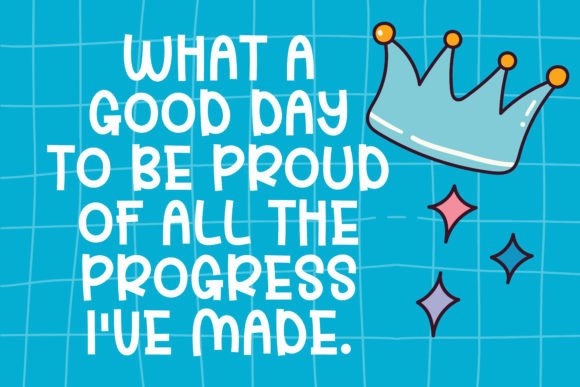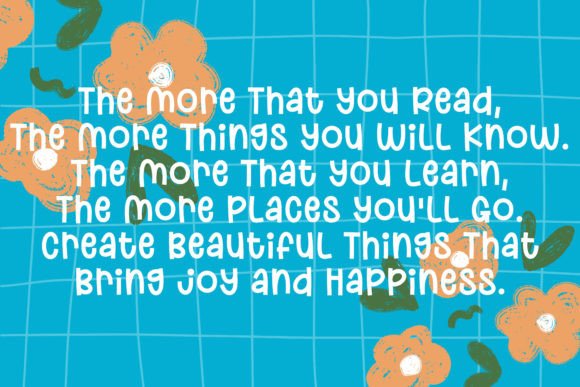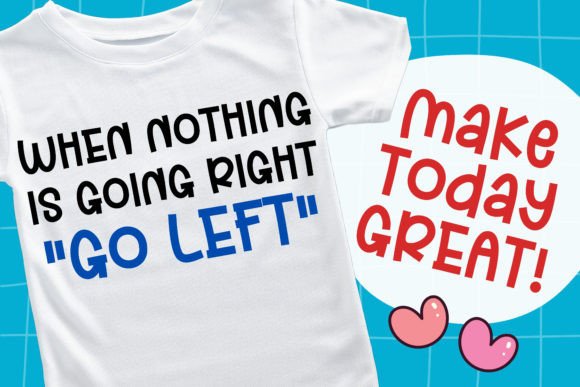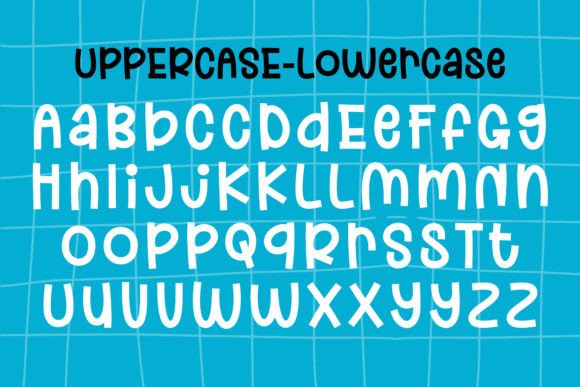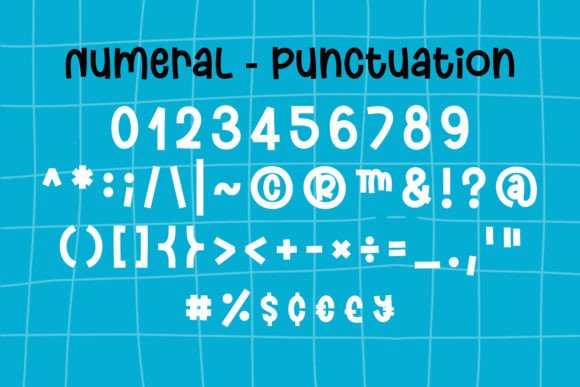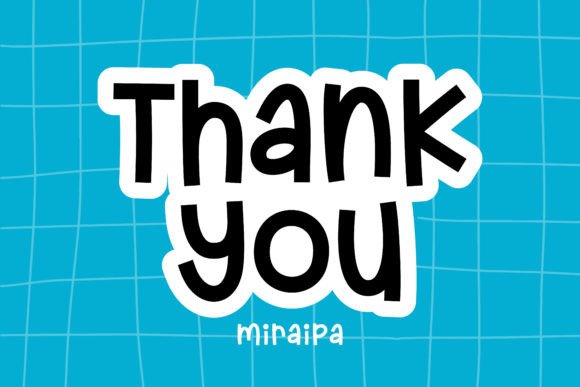
Give Your Projects a Friendly Touch with Best Friday Font
Have you ever sat at your desk, surrounded by scattered papers and half-finished ideas, and suddenly felt the urge to create something fun and playful? Maybe it’s a DIY project, a custom invitation, or a social media post – whatever it is, the spark of creativity is there, waiting to be ignited.
Enter the Best Friday Font, a delightful handwritten sans serif font designed to bring a smile to your audience’s faces. Perfect for adding a friendly touch to your projects, this font is ideal for Easter decorations, back to school planners, wedding invitations, and any other fun project that needs a little extra personality. With its playful and approachable style, the Best Friday Font is a valuable addition to any designer’s library.
- Unique Characteristics: The “Best Friday Font” features a unique blend of modern and vintage elements, with a distinctive flair that sets it apart from other sans-serif fonts.
- Character Set: This font includes a comprehensive character set, covering a wide range of languages, including Latin, Cyrillic, and Greek alphabets, as well as various symbols and punctuation marks.
- Kerning and Ligatures: The font includes advanced kerning and ligature pairs, ensuring that text is rendered with precision and elegance, even in complex compositions.
When I first laid eyes on “Best Friday Font”, I was immediately drawn in by its quirky charm ✨. The font’s playful, handwritten feel is perfect for adding a touch of whimsy to your designs. I appreciate how the font’s imperfections and variability give it a unique, handcrafted quality that’s hard to replicate with more generic fonts.
The font’s character set is also quite extensive, making it suitable for a wide range of projects, from social media graphics to advertising campaigns. I’ve had a lot of fun experimenting with different combinations of the font’s various styles and weights ✨.
While “Best Friday Font” has its strengths, it’s not without its limitations ⚠️. The font’s inconsistent spacing and kerning can sometimes make it difficult to read, particularly at smaller font sizes. Additionally, the font’s lack of a clear, bold weight makes it less suitable for use in headings or titles.
Overall, I think “Best Friday Font” is a solid choice for designers looking to add a bit of personality to their work. While it may not be the most polished or professional font out there, its unique charm and versatility make it a great option for creatives who want to stand out from the crowd.
- ✨ Unique, handcrafted feel
- ✨ Extensive character set
- ✨ Suitable for a wide range of projects
- ⚠️ Inconsistent spacing and kerning
- ⚠️ Lack of clear, bold weight
The Best Friday Font is perfect for creating eye-catching social media posts, posters, and flyers. You can also use it to add a touch of personality to your resume, business cards, or other marketing materials.
For best results, use the Best Friday Font in bold or italic styles to add emphasis to your text.